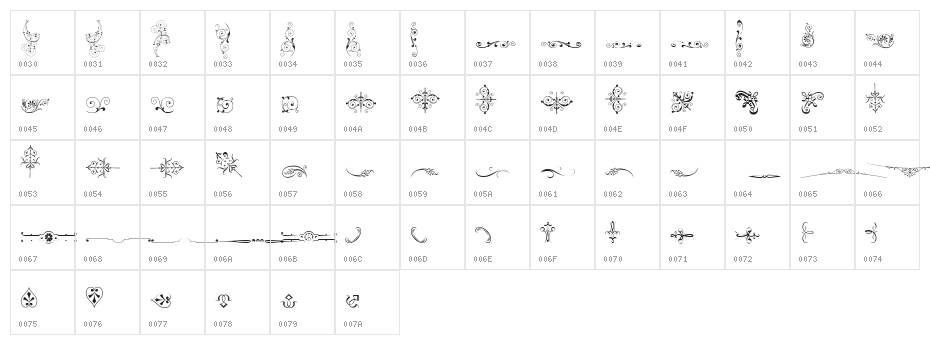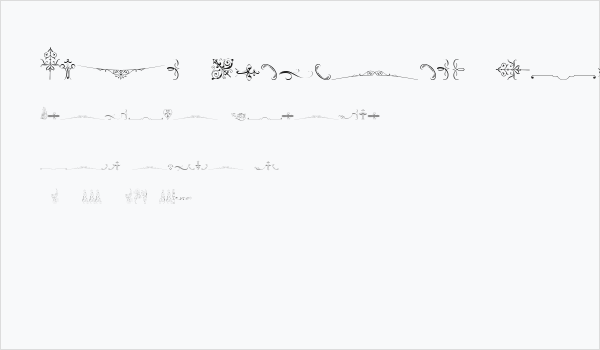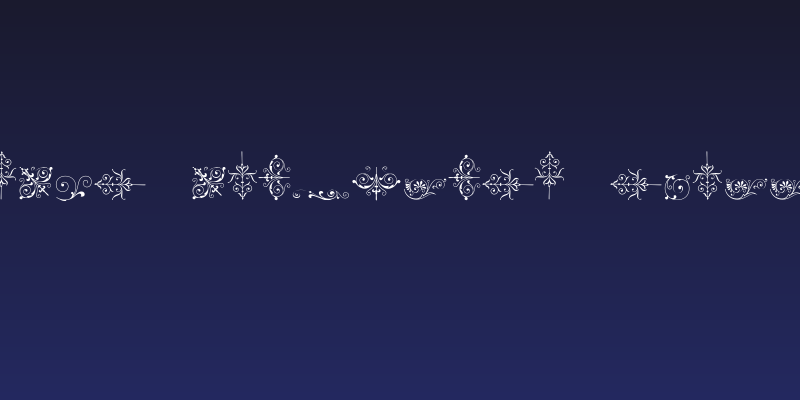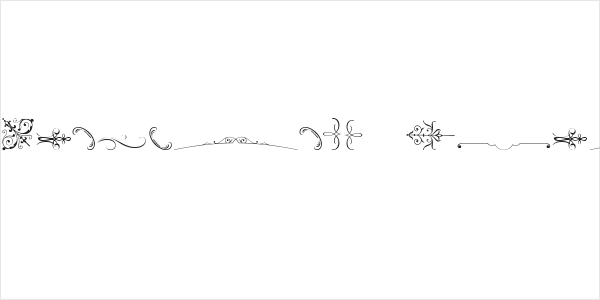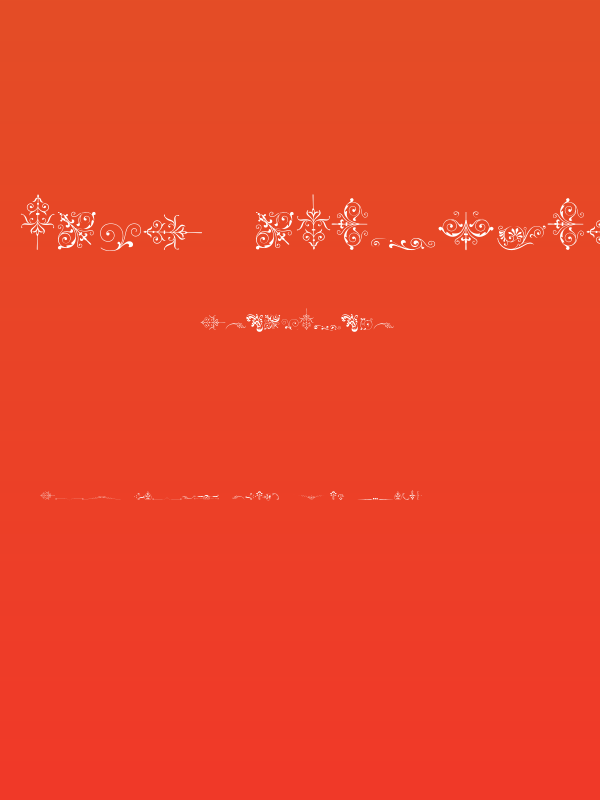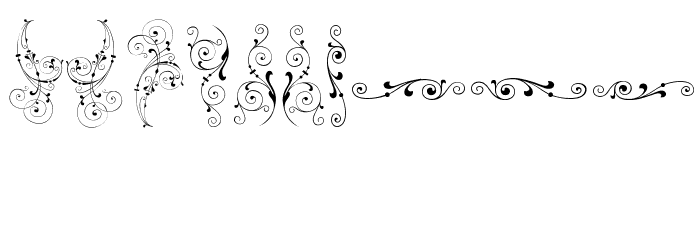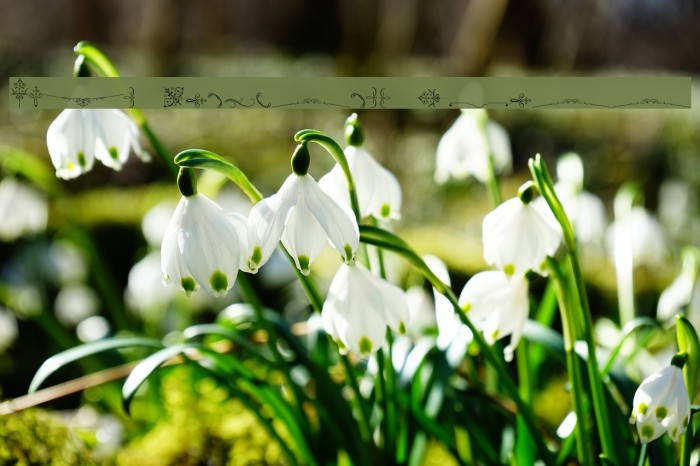
Soft Ornaments Three Font
Soft Ornaments Three Description
A highly decorative collection of ornamental glyphs featuring intricate swirls, flourishes, and symmetrical motifs. The designs include borders, dividers, and stylized symbols with a vintage, elegant appearance, primarily in black line art.
| Overall Style | Vintage, Decorative |
| Use Case | Borders, Dividers, Decorative elements |
| Proposed Projects | Wedding invitations, certificates, vintage posters, book covers, decorative dividers, branding for luxury products. |